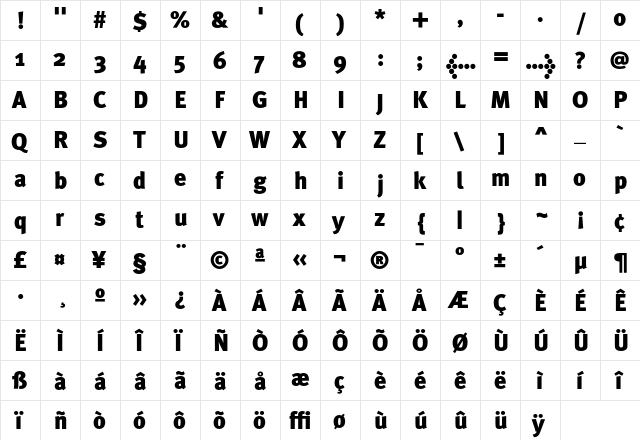
MetaPlusBlack- Roman Font Preview
MetaPlusBlack- Roman
Design Context for MetaPlusBlack- Typeface
MetaPlusBlack- is a composed and adaptable typeface that performs quietly and consistently across a wide range of design contexts.